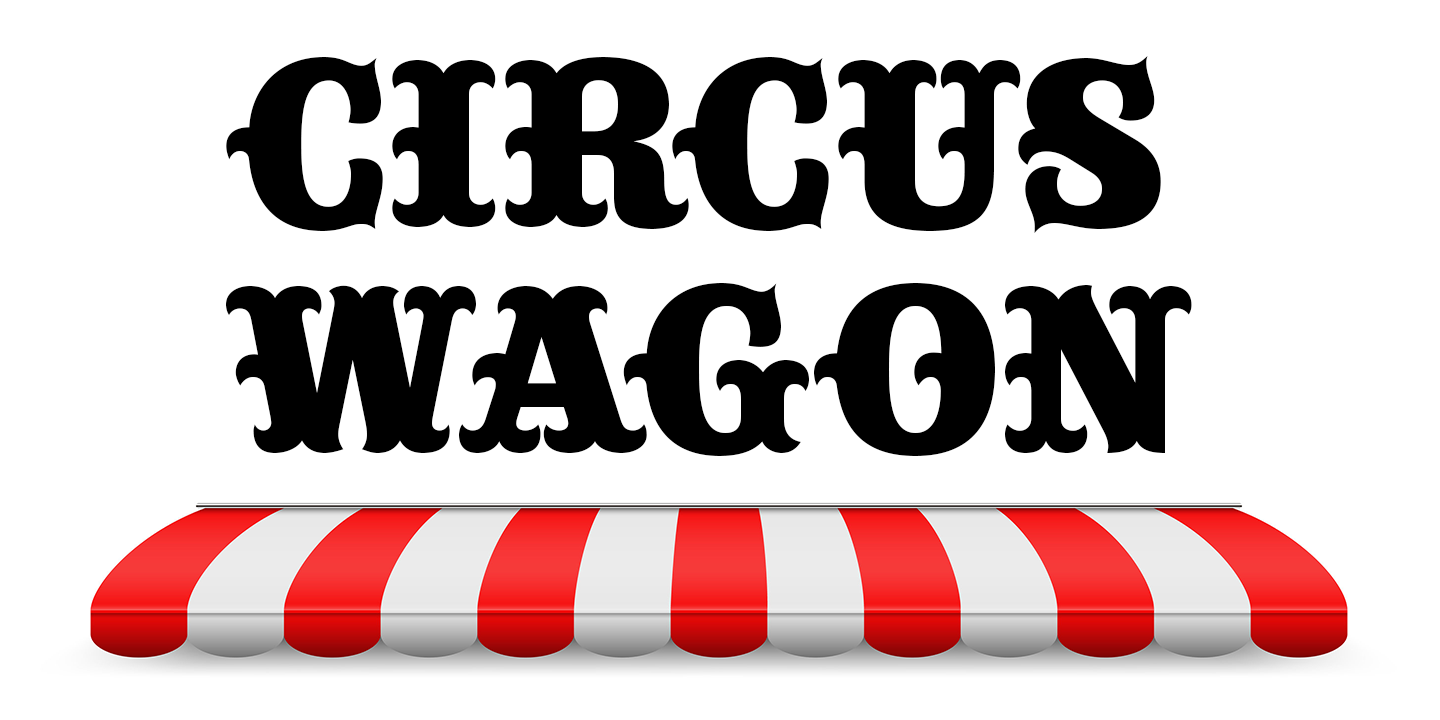
The Circus Wagon Font is perfect for carnival event posters, circus show promotions, vintage fair advertising, children's entertainment branding, amusement park signage, street festival graphics, magic show materials, old-time theater productions, and nostalgic entertainment venue marketing.
What makes the Circus Wagon Font so exciting is its vibrant carnival atmosphere that instantly transports viewers to the magical world of vintage circus entertainment and traveling shows. This captivating typeface embodies the colorful spectacle and nostalgic charm that defines classic American carnival culture, creating an immediate sense of wonder and entertainment excitement. The font's circus character communicates the theatrical flair and family-friendly entertainment that carnival businesses need to attract audiences seeking authentic vintage entertainment experiences and the timeless magic of traditional circus performances.
The Circus Wagon Font family includes Regular weight featuring complete uppercase and lowercase character sets, comprehensive numerical collections, essential punctuation marks, and carnival-themed decorative elements that maintain the vintage circus aesthetic throughout your entertainment and nostalgic celebration design projects.
Entertainment venues and carnival organizations consistently select Circus Wagon Font Free Download for projects that require authentic vintage appeal and theatrical entertainment communication. This exceptional typeface excels in environments where establishing nostalgic charm and carnival excitement is crucial for attracting families and entertainment seekers who value traditional circus magic and vintage carnival experiences. The font's theatrical character helps communicate the wonder and family entertainment that circus audiences expect from established carnival performers and vintage entertainment providers.
The distinctive qualities of Circus Wagon Font reflect the rich traditions of American carnival culture where traveling shows, circus performances, and community celebrations created magical entertainment experiences for generations of families. Each character demonstrates the bold theatricality and colorful energy that characterized vintage circus advertising and carnival promotion materials. The font's proportions and spacing create perfect balance between nostalgic authenticity and contemporary readability that modern entertainment businesses require for effective audience engagement and family-friendly marketing.
Contemporary entertainment enterprises appreciate how Circus Wagon Font communicates vintage authenticity and theatrical excitement. Whether designing materials for traveling carnivals, creating branding for family entertainment venues, or developing marketing for nostalgic celebration events, this font delivers the genuine character that distinguishes authentic vintage entertainment from generic modern alternatives. The typeface works exceptionally well for businesses emphasizing family fun, theatrical performance, and the magical appeal of traditional circus entertainment and carnival celebration.
The versatility of Circus Wagon Font extends across multiple entertainment applications and nostalgic marketing initiatives. Children's party planners utilize its carnival character for birthday celebration materials and family entertainment promotions. Vintage-themed restaurants choose it to communicate the fun atmosphere and nostalgic appeal of their entertainment dining experiences. Community festivals rely on its theatrical appearance to attract families seeking authentic carnival entertainment and traditional celebration experiences.
Digital entertainment platforms benefit from Circus Wagon Font's optimized performance across various carnival-themed applications and entertainment communication channels. The font maintains its circus character whether displayed on entertainment websites, mobile carnival apps, or digital event promotion materials. This technical reliability ensures consistent brand presentation across all entertainment communication platforms and carnival engagement scenarios.
The emotional impact of Circus Wagon Font resonates with audiences who cherish nostalgic entertainment experiences and seek the magical wonder of traditional circus performances and carnival celebrations. The typeface serves as a visual invitation to experience vintage entertainment magic and family-friendly carnival fun that helps entertainment businesses build joyful relationships with families who appreciate authentic circus traditions and nostalgic celebration experiences. This connection to vintage magic and carnival wonder makes it invaluable for establishing memorable entertainment brand identities.
Entertainment marketing specialists and vintage design professionals recognize Circus Wagon Font as an essential tool for authentic carnival branding. The font captures the essence of vintage circus entertainment while making nostalgic celebration accessible to contemporary entertainment businesses who want to communicate their commitment to family fun, theatrical magic, and the timeless appeal of traditional carnival entertainment in today's competitive family entertainment marketplace.